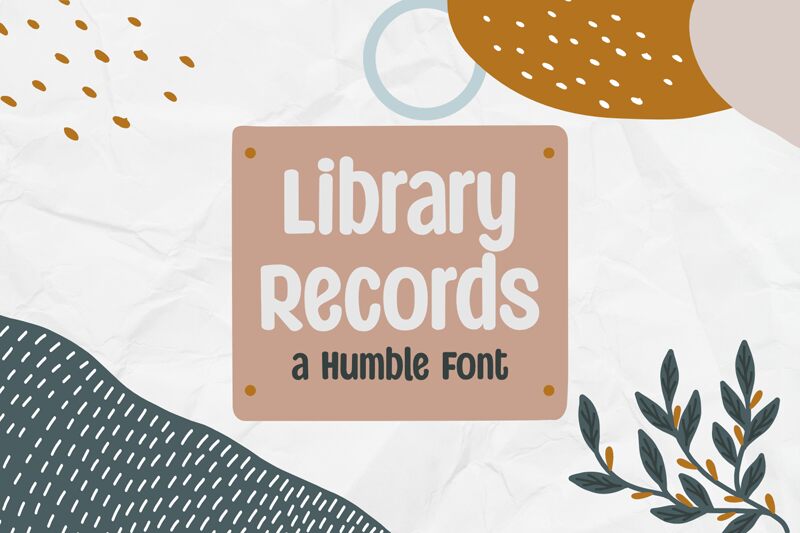
Library Records Regular
Library Records is a narrow display font designed by Ali Hamidi. Its unique style makes it perfect for projects such as logos, signage, posters, and headlines. It's also great for creating memorable graphics that stand out from the crowd.